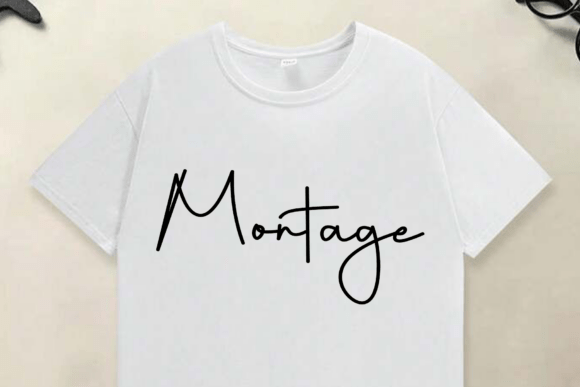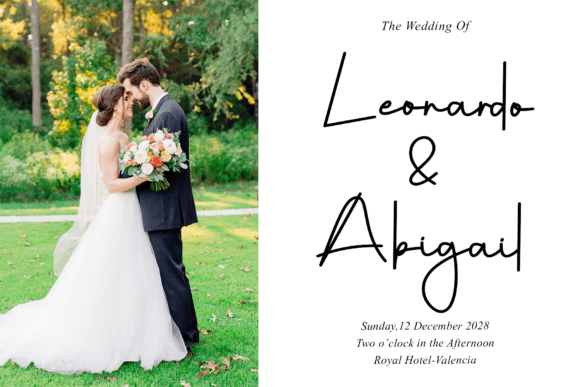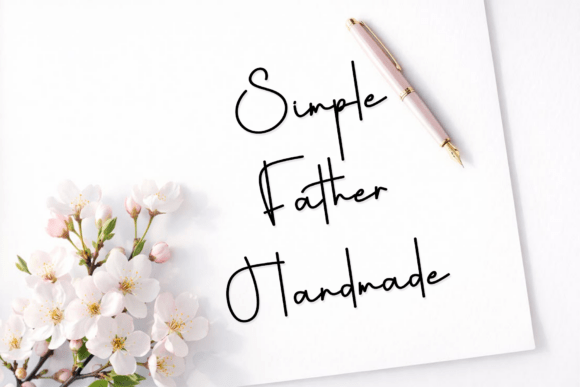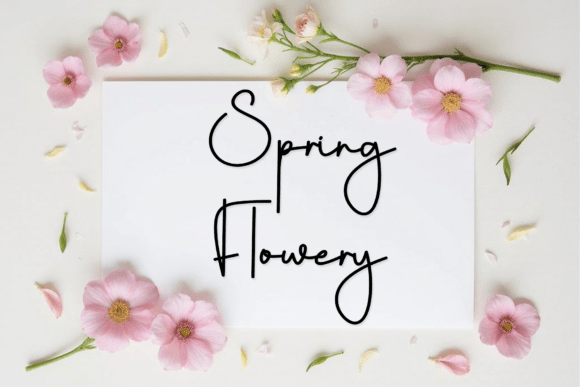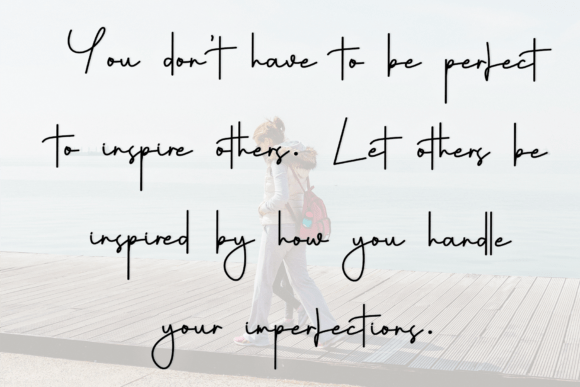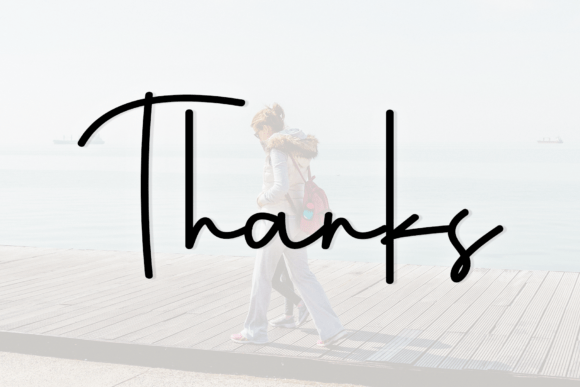
Introducing Daylight Font: Elevate Your Designs with Elegance and Sophistication
In the world of typography, the right font can make all the difference in transforming a design from ordinary to extraordinary. For creative professionals and crafters looking to infuse their projects with a touch of elegance and sophistication, Daylight Font is an exceptional choice. This beautifully crafted script font is designed to bring a graceful, hand-penned touch to contemporary creative endeavors, making it perfect for a wide range of applications.
The Characteristics of Daylight Font
Daylight Font is a sophisticated and fluid script font that boasts several distinctive features. Its vertically elongated letterforms are rendered with a fine, monolinear stroke weight, giving the font a sense of refinement and luxury. The smooth character joins further enhance the font’s fluidity, creating a seamless and harmonious visual experience. These characteristics make Daylight Font an ideal choice for designers and crafters seeking to add a touch of sophistication to their work.
Daylight Font is an incredibly versatile font that can be used in a variety of creative projects. Its elegant and refined appearance makes it perfect for:
- Boutique brand identities: Establish a luxurious and high-end image for your brand with Daylight Font. Its sophisticated appearance is sure to make your brand stand out from the competition.
- Personal signature watermarks: Add a touch of elegance to your personal signature watermarks with Daylight Font. Its refined appearance will give your watermarks a professional and polished look.
- Elegant lifestyle marketing: Use Daylight Font to create stunning marketing materials that exude luxury and sophistication. From brochures to social media headers, this font is sure to elevate your marketing efforts.
- Professional social media headers: Make a lasting impression on your social media followers with Daylight Font. Its elegant appearance is sure to elevate your professional social media presence.
Why Choose Daylight Font?
With so many fonts available, why choose Daylight Font? Here are just a few reasons why this font stands out from the rest:
- Unique and distinctive: Daylight Font’s vertically elongated letterforms and fine, monolinear stroke weight make it a unique and distinctive font that is sure to set your designs apart.
- Highly versatile: This font can be used in a wide range of creative projects, from boutique brand identities to personal signature watermarks.
- Elegant and sophisticated: Daylight Font’s refined appearance makes it perfect for designers and crafters seeking to add a touch of elegance and sophistication to their work.
Tips for Using Daylight Font
To get the most out of Daylight Font, here are a few tips to keep in mind:
- Use it sparingly: While Daylight Font is a beautiful font, it’s best used sparingly. Use it as a headline font or for key design elements to create a lasting impression.
- Pair it with complementary fonts: Pair Daylight Font with complementary fonts to create a visually appealing design. A simple sans-serif font can provide a nice contrast to the elegance of Daylight Font.
- Experiment with different sizes: Don’t be afraid to experiment with different sizes of Daylight Font. Its elegant appearance can be enhanced by using it in larger sizes for headlines or smaller sizes for body text.